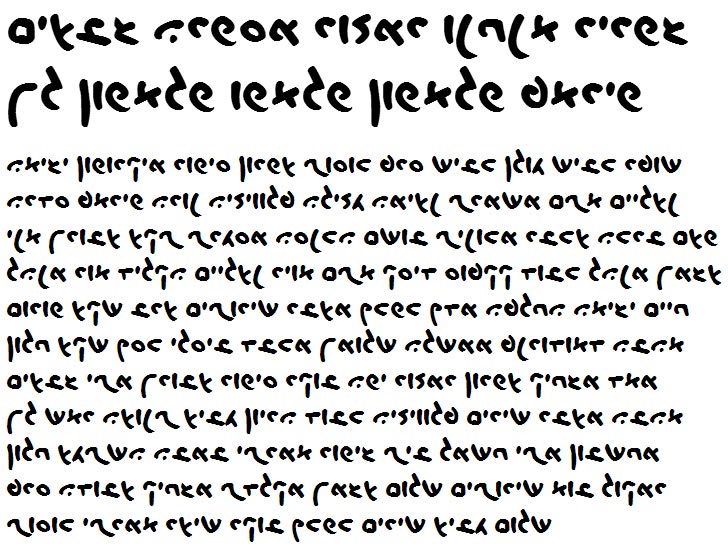
✓ As a gesture to the sucess of the "Choco" font, I drew these letters, that hold a better resemblence to my true handwriting. This font was also drawn by hand, using a black marker on a white page. This time, I drew both weights by hand, instead of artificially change weights using a computer, by using two differently shaped markers. I also added a special dingbat, with illustrations that may accompany text written in this font, and also independently. "Petel" (raspberries), another very Israeli drink, looked like the best name for an "answer" to Choco.
X_Petel Bold Hebrew Font
โœ“ ื›ืžื—ื•ื•ื” ืœื”ืฆืœื—ืช ื”ื’ื•ืคืŸ "ืฆ'ื•ืงื•", ืฆื™ื™ืจืชื™ ืืช ื”ืื•ืชื™ื•ืช ื”ืœืœื•, ื”ื“ื•ืžื•ืช ื™ื•ืชืจ ืœื›ืชื‘ ื”ื™ื“ ื”ืืžื™ืชื™ ืฉืœื™. ื’ื•ืคืŸ ื–ื” ืฆื•ื™ืจ ื’ื ื”ื•ื ื‘ื™ื“, ื‘ืืžืฆืขื•ืช ื˜ื•ืฉ ืฉื—ื•ืจ ืขืœ ื“ืฃ ืœื‘ืŸ. ื”ืคืขื, ืฆื™ื™ืจืชื™ ืืช ืฉืชื™ ื”ืžืฉืงื•ืœื•ืช ื‘ื™ื“, ื‘ืžืงื•ื ืœื”ื—ืœื™ืฃ ืžืฉืงืœื•ืช ื‘ืื•ืคืŸ ืžืœืื›ื•ืชื™ ื‘ืืžืฆืขื•ืช ืžื—ืฉื‘, ื‘ืืžืฆืขื•ืช ืฉื ื™ ื˜ื•ืฉื™ื ื‘ืขืœื™ ืฆื•ืจื” ืฉื•ื ื”. ื”ื•ืกืคืชื™ ื’ื ื“ื™ื ื’ื‘ื˜ ืžื™ื•ื—ื“, ืขื ืื™ื•ืจื™ื ืฉืขืฉื•ื™ื™ื ืœืœื•ื•ืช ื˜ืงืกื˜ ืฉื ื›ืชื‘ ื‘ื’ื•ืคืŸ ื”ื–ื”, ื•ื’ื ื‘ืื•ืคืŸ ืขืฆืžืื™. "ืคื˜ืœ" (ืคื˜ืœ), ืขื•ื“ ืžืฉืงื” ื™ืฉืจืืœื™ ืžืื•ื“, ื ืจืื” ื›ืžื• ื”ืฉื ื”ื˜ื•ื‘ ื‘ื™ื•ืชืจ ืœ"ืชืฉื•ื‘ื”" ืœืฉื•ืงื•.